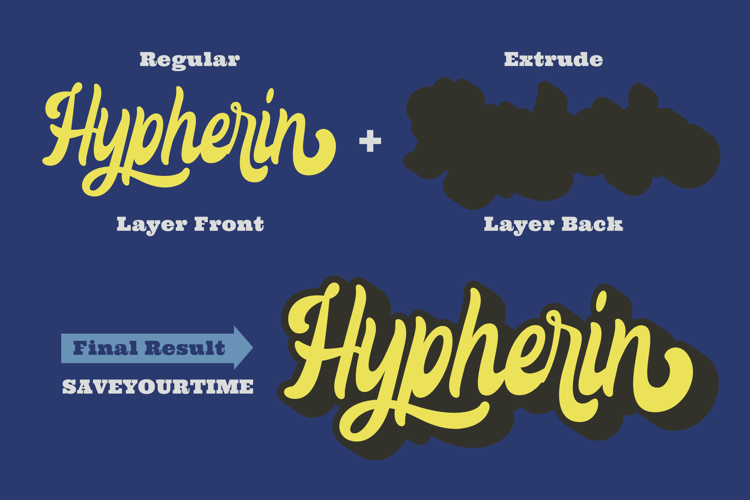
Hypherin Font
Hypherin is a gorgeous and bold handwritten font, crafted to give your headlines and logotype projects a stylish touch. This font reads as strong, confident, and dynamic and can add tons of nostalgic character to your designs. Hypherin is PUA encoded which means you can access all of the beautiful glyphs and swashes with ease!